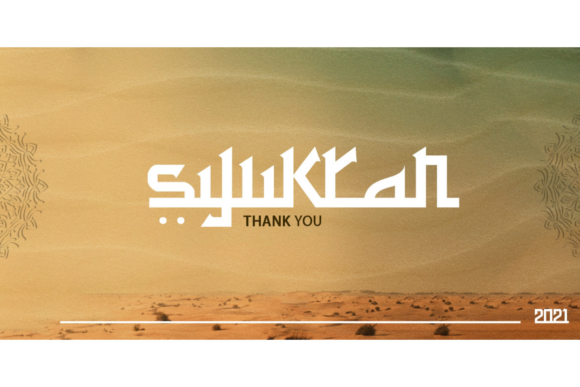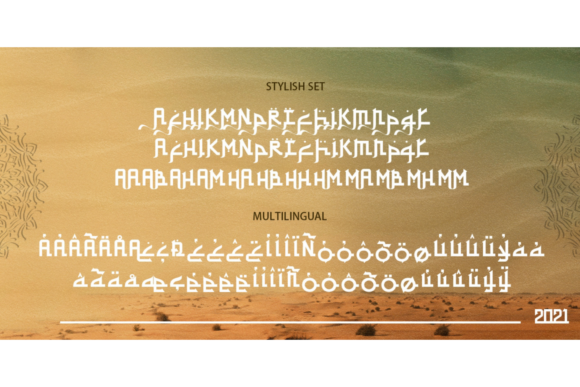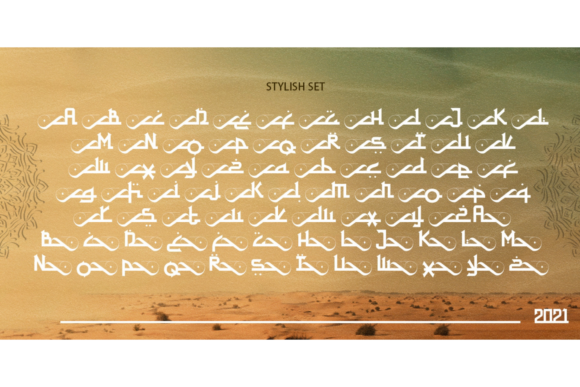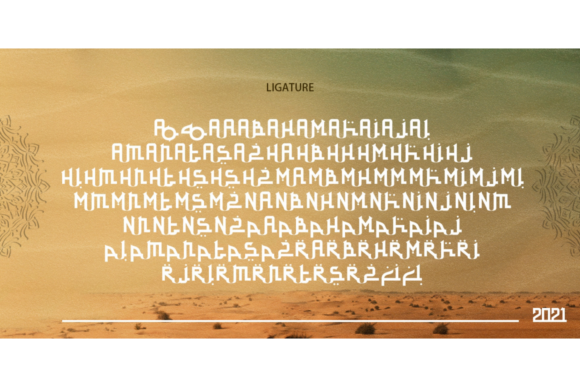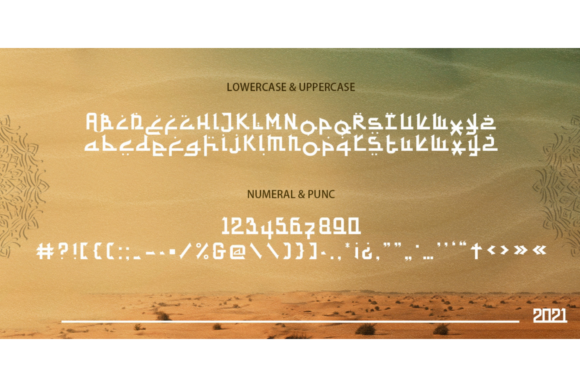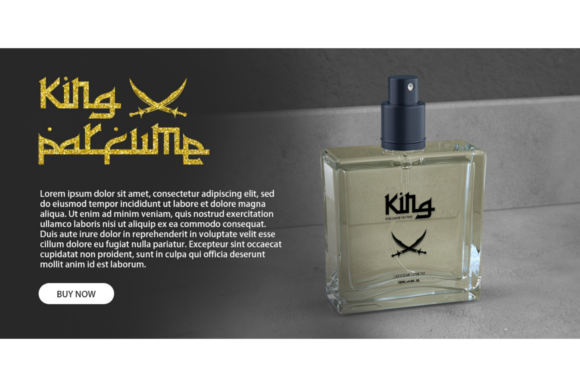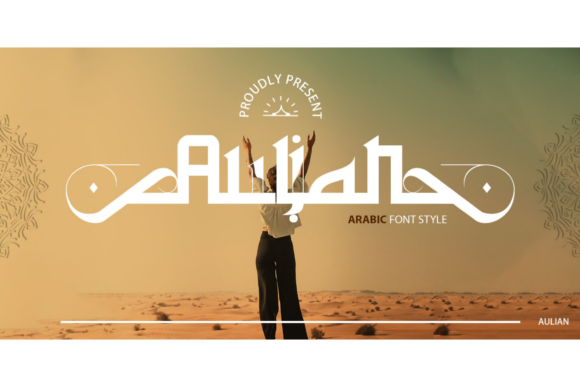
Aulian Font: Elevate Your Designs with a Touch of Arabic Elegance
In the world of typography, a font can make or break a design. It’s the perfect blend of style, elegance, and personality that can elevate a creation from ordinary to extraordinary. If you’re a designer or crafter looking for a font that exudes sophistication and uniqueness, look no further than Aulian Font. This stylish, Arabic-inspired display font is sure to leave a lasting impression on your audience.
What Makes Aulian Font Stand Out?
Aulian Font is an imposing and distinctive typeface that features uniquely shaped letters, making it perfect for designs that require a touch of elegance and refinement. Its Arabic inspiration gives it a global flair, allowing it to seamlessly blend with a wide range of creations, from luxurious branding to eye-catching posters. Whether you’re working on a packaging design, a website, or a social media campaign, Aulian Font is sure to add a level of sophistication that sets you apart from the competition.
Key Features of Aulian Font
• Stylish and Elegant Design: Aulian Font boasts a stylish and elegant design that’s perfect for creating stunning visual content.
• Arabic Inspiration: The font’s Arabic inspiration gives it a unique and exotic flair that’s sure to captivate your audience.
• PUA Encoded: Aulian Font is PUA (Private Use Area) encoded, which means you can access all glyphs and swashes with ease, giving you maximum flexibility and creative control.
• Wide Range of Applications: From branding and advertising to packaging and web design, Aulian Font is versatile enough to match a wide range of creations.
Benefits of Using Aulian Font
So, why choose Aulian Font for your next design project? Here are just a few benefits you can expect:
• Instant Recognition: Aulian Font’s unique design ensures instant recognition and recall, making it perfect for branding and advertising applications.
• Emotional Connection: The font’s elegant and sophisticated design helps create an emotional connection with your audience, making your message more relatable and memorable.
• Versatility: Aulian Font’s versatility means you can use it across a wide range of applications, from print to digital, without compromising on style or legibility.
• Easy to Use: With its PUA encoding, Aulian Font is easy to use and edit, even for designers with limited typography experience.
Who Can Benefit from Aulian Font?
Aulian Font is perfect for a wide range of designers and crafters, including:
• Graphic Designers: Add a touch of elegance and sophistication to your branding, advertising, and marketing materials.
• Web Designers: Create stunning websites and web applications that showcase your creativity and attention to detail.
• Packaging Designers: Elevate your packaging designs with a font that’s both stylish and memorable.
• Social Media Influencers: Stand out on social media with eye-catching graphics and typography that showcases your personality and brand.
In conclusion, Aulian Font is a stylish, Arabic-inspired display font that’s perfect for designers and crafters looking to add a touch of elegance and sophistication to their creations. With its unique design, PUA encoding, and versatility, Aulian Font is sure to become a staple in your font library. So why wait? Download Aulian Font today and take your designs to the next level!